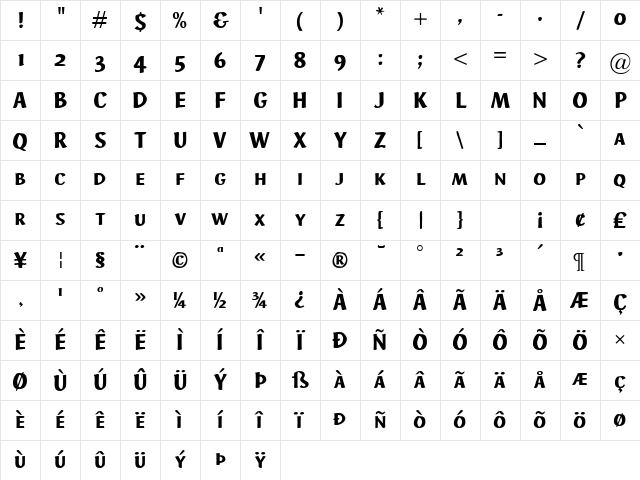
Ad Hoc SmallCaps Regular Free Font
Ad Hoc SmallCaps Regular
Design Context for Ad Hoc SmallCaps
Ad Hoc SmallCaps is a composed and adaptable typeface that performs quietly and consistently across a wide range of design contexts.